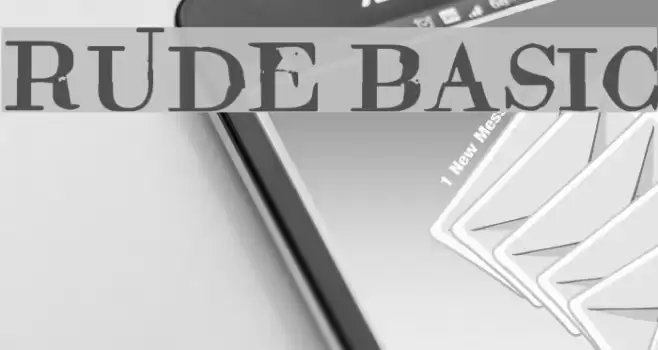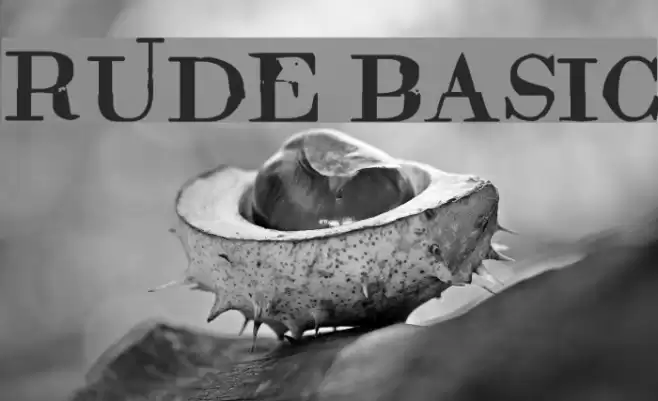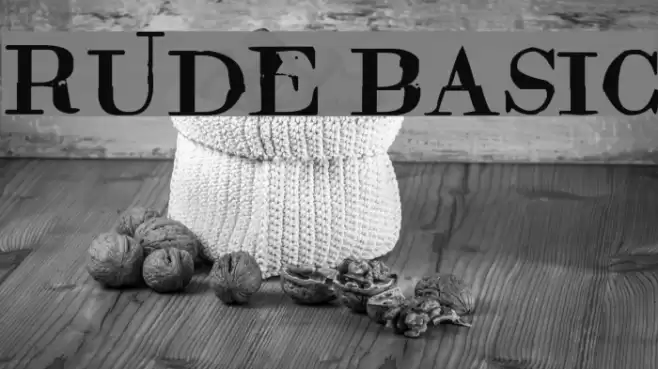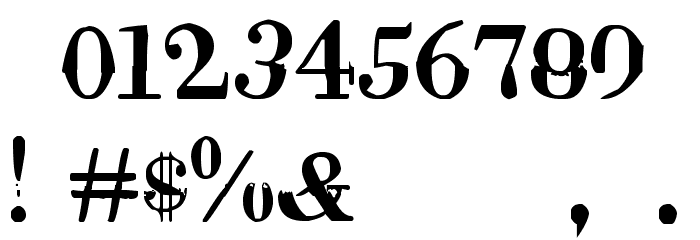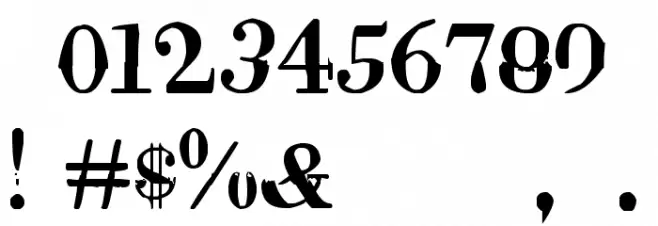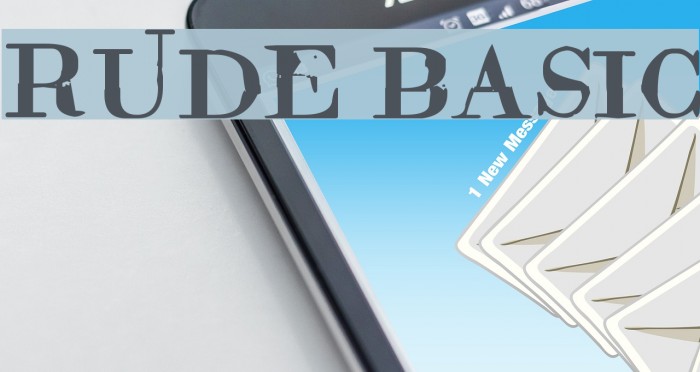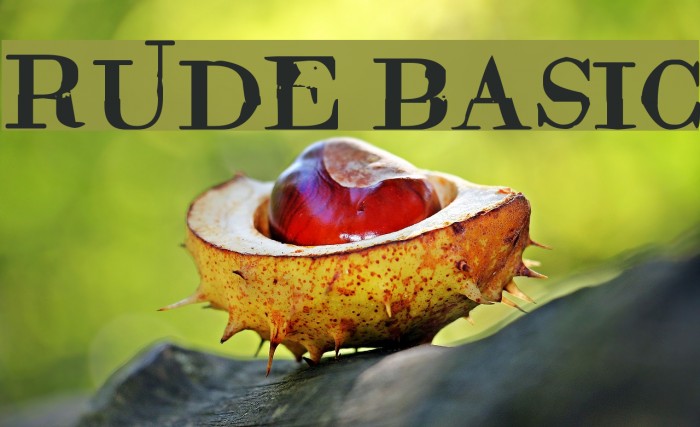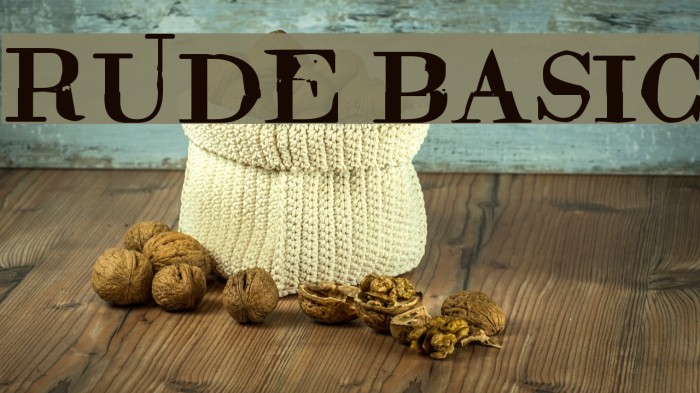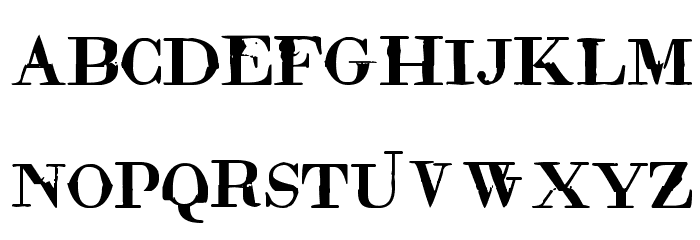
Rude Basic Font
Rude Basic Description
This font features a bold and striking design with a distressed, grunge-like appearance. The characters have a serif style with uneven edges and a rough texture, giving them a rugged and edgy look. The uppercase and lowercase letters maintain a consistent style, while the numbers and special characters complement the overall aesthetic. The font's unique design makes it stand out, suitable for projects that require a bold statement or an artistic touch.
A bold, distressed serif font with a rugged, grunge-like appearance from Distorted Eroded fonts.
- Proposed Projects: Ideal for album covers, posters, branding for edgy or alternative products, and any design needing a bold, artistic flair.